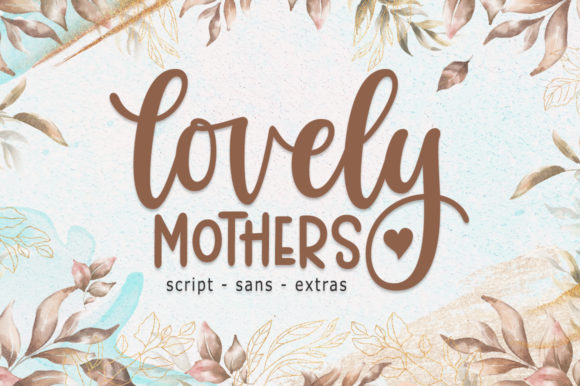
Introducing Lovely Mothers Font, the ultimate script font family that will take your design projects to new heights! Created by the talented rastype1010, this font is the perfect choice for anyone looking for the best font for ID cards.
Lovely Mothers is not just your ordinary font. It is a beautiful light duo font that combines the elegance of a sans serif with the charm of a handwritten style. This unique blend creates a stunning impact that will captivate your audience and leave them in awe.
With Lovely Mothers, you can effortlessly add a touch of luxury and sophistication to any design project. Whether you're creating elegant invitations, stylish logos, or eye-catching social media graphics, this font will make your work stand out from the crowd.
One of the standout features of Lovely Mothers is its extensive range of amazing glyphs and ligatures. Thanks to its PUA encoding, accessing these special characters is a breeze! Unleash your creativity and experiment with different letter combinations to create truly one-of-a-kind designs.
But why should you choose Lovely Mothers over other fonts? Well, apart from its stunning visual appeal, this font is also incredibly versatile. It can seamlessly adapt to various design styles, whether you're going for a modern, vintage, or even a whimsical look. The possibilities are endless!
But don't just take our word for it. Let the Lovely Mothers font speak for itself and witness the magic it brings to your creative projects. Experience the joy of designing with a font that sparks emotions, evokes elegance, and leaves a lasting impression.
So, what are you waiting for? Elevate your design game with Lovely Mothers Font today and let your creativity soar to new heights. Whether you're a professional designer or a passionate DIY enthusiast, this font is a must-have in your collection.